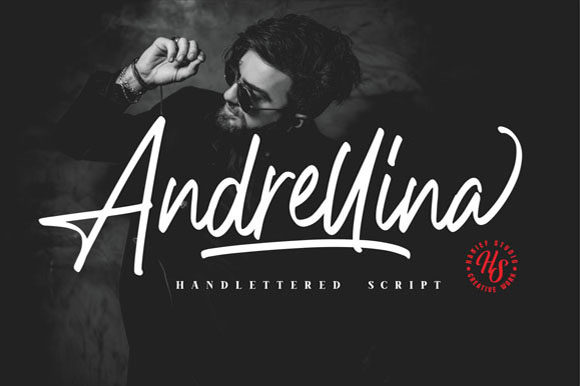
Andrellina Font: A Script that Radiates Life and Authenticity
When it comes to typography, the right font can make all the difference in bringing a design to life. Andrellina is a beautifully crafted script font that embodies the essence of elegance and sophistication. With its unique charm and authentic feel, Andrellina is the perfect choice for designers looking to add a touch of personality to their work. In this article, we’ll explore the features and benefits of Andrellina font and how it can help you create stunning designs that stand out from the crowd.
What Makes Andrellina Font So Special?
Andrellina is a carefully crafted script font that radiates life and authenticity. Its unique charm lies in its elegant and flowing strokes, which give it a sense of movement and energy. The font is designed to be highly legible, making it perfect for use in a variety of design applications, from branding and advertising to packaging and digital media.
One of the standout features of Andrellina is its versatility. The font comes in a range of styles and weights, allowing designers to choose the perfect variation to suit their design needs. Whether you’re looking for a bold and dramatic statement or a more subtle and understated look, Andrellina has got you covered.
Getting Inspired by Andrellina’s Unique Charm
Andrellina’s unique charm is sure to inspire designers to create something truly special. The font’s elegant and flowing strokes evoke a sense of sophistication and luxury, making it perfect for designs that require a high-end feel. Whether you’re working on a branding project, a website design, or a marketing campaign, Andrellina is sure to add a touch of elegance and refinement to your work.
One of the best ways to get inspired by Andrellina is to experiment with different design combinations. Try pairing the font with bold colors and striking imagery to create a truly eye-catching design. Alternatively, use Andrellina as a subtle accent font to add a touch of sophistication to your design.
Tips for Using Andrellina Font in Your Designs
Here are some tips for getting the most out of Andrellina font in your designs:
- Use Andrellina as a headline font: Andrellina’s elegant and flowing strokes make it perfect for use as a headline font. Try using it to add a touch of sophistication to your title or header text.
- Experiment with different weights and styles: Andrellina comes in a range of weights and styles, allowing you to choose the perfect variation to suit your design needs. Experiment with different combinations to find the one that works best for your design.
- Pair Andrellina with bold colors and imagery: Andrellina’s elegant and refined feel makes it the perfect choice for designs that require a high-end look. Try pairing it with bold colors and striking imagery to create a truly eye-catching design.
The Benefits of Using Andrellina Font
So why choose Andrellina font for your design projects? Here are just a few of the benefits of using this beautiful script font:
- Elegance and sophistication: Andrellina’s elegant and flowing strokes give it a sense of sophistication and luxury, making it perfect for designs that require a high-end feel.
- Versatility: Andrellina comes in a range of styles and weights, allowing designers to choose the perfect variation to suit their design needs.
- Legibility: Andrellina is designed to be highly legible, making it perfect for use in a variety of design applications.
| Font Name | Andrellina Font |
| Author | Hanzel Studio |
Andrellina font is a beautifully crafted script font that radiates life and authenticity. With its unique charm and elegant feel, Andrellina is the perfect choice for designers looking to add a touch of sophistication to their work. Whether you’re working on a branding project, a website design, or a marketing campaign, Andrellina is sure to inspire you to create something truly special. So why not give Andrellina a try and see the difference it can make in your designs?